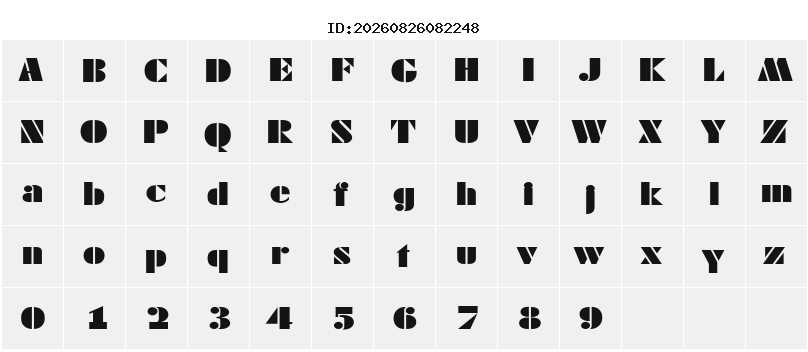
WendyBeckerExtended Preview
• Font Name: WendyBeckerExtended
• Full Font Name: WendyBeckerExtended
• PostScript Name: WendyBeckerExtended
About WendyBeckerExtended.ttf
WendyBeckerExtended.ttf is a modern, elegant sans-serif font designed for ultimate readability and visual harmony. Perfect for branding, headlines, web design, and print materials.